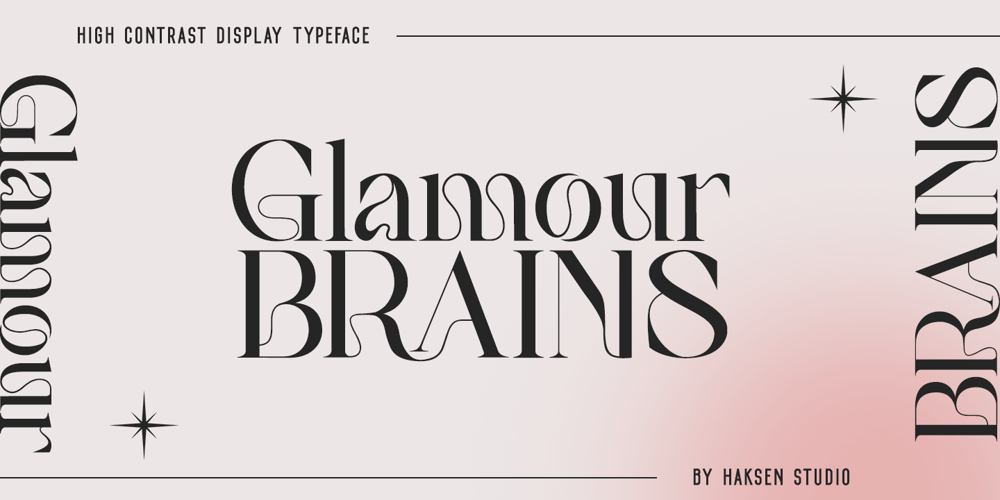
Glamour Brains Font Family was designed by Sarwo Edhi Prayitno and published by Haksen. Glamour Brains contains 1 styles and family package options. Glamour Brains is a contrast serif display style with unique anatomy every letter. Provide variant ligatures make the design letter looks incredible. Honestly it works perfectly for headlines, logos, posters, packaging and much more.Font Features : Character set A-Z in uppercase and lowercase Ligatures in Uppercase Numerals & Punctuation Accented Characters Multiple Languages Supported Recommended to use in Adobe Illustrator or Adobe Photoshop with opentype feature.Ligatures feature is default setting in Adobe Illustrator or Adobe Photoshop in Uppercase character.So when you want not to use the ligatures.Open glyphs panel : In Adobe Photoshop choose tool Window Character and then please click fi symbol In Adobe Illustrator choose tool Window Type Open Type and then please click fi symbol If you have questions, just send me a message and I’m glad to help.Have a great day,Haksen